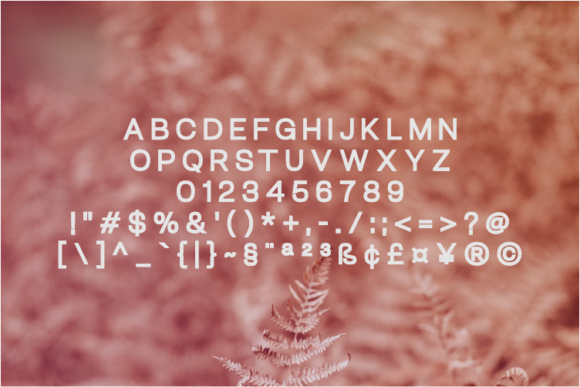
Introduction to Huanrain Font Font
Fonts play a crucial role in design, and the Huanrain Font font is a typeface that brings both character and versatility to any project. Whether you’re working on a branding project, a website, or a print design, the Huanrain Font font offers a unique style that can elevate your work.
Huanrain feels equally charming and elegant.
This elegant sans serif font is perfect for making original and outstanding designs .
Key Features of Huanrain Font Font
Why Choose Huanrain Font Font?
The Huanrain Font font is more than just a typeface – it’s a design tool that helps you communicate your message with style and clarity. Its unique character set and versatile design make it suitable for a wide range of applications, from elegant invitations to bold headlines.
With its carefully crafted letterforms and balanced proportions, the Huanrain Font font ensures readability and visual appeal across all mediums.
What makes Huanrain Font font special?
The Huanrain Font font stands out with its unique design, exceptional readability, and versatility across various design applications.